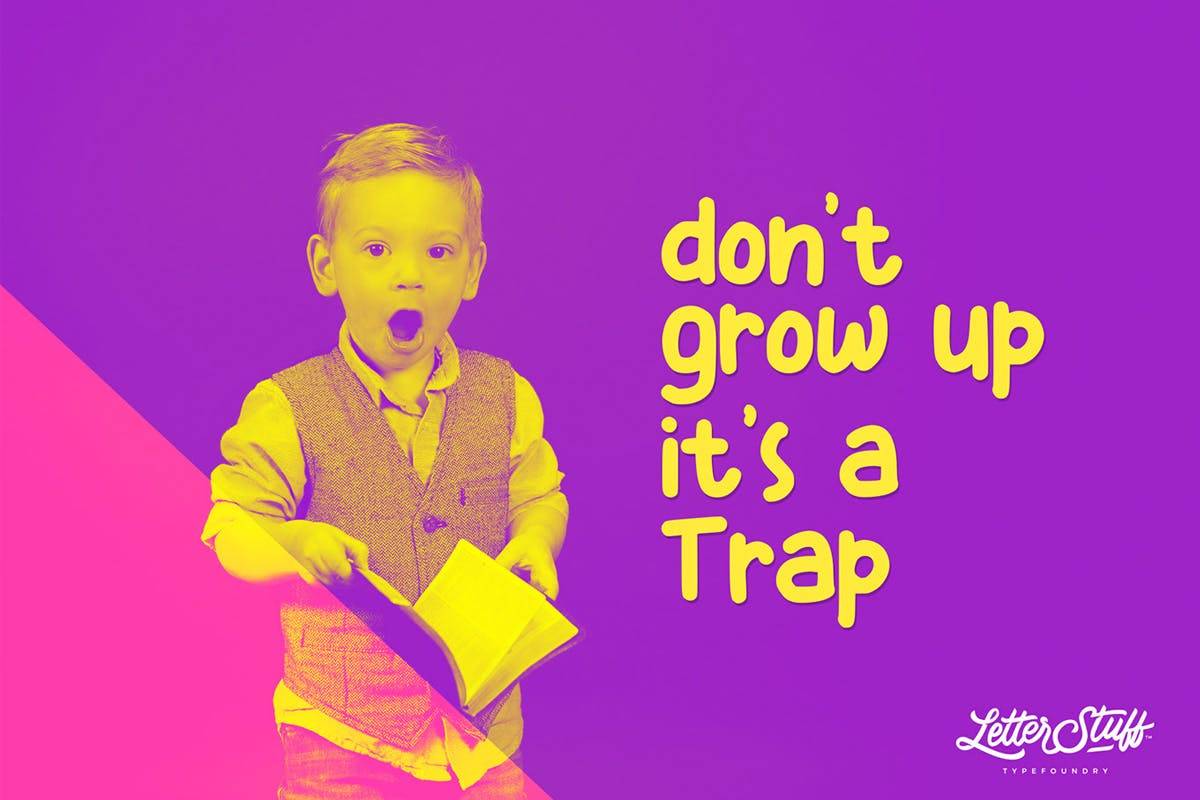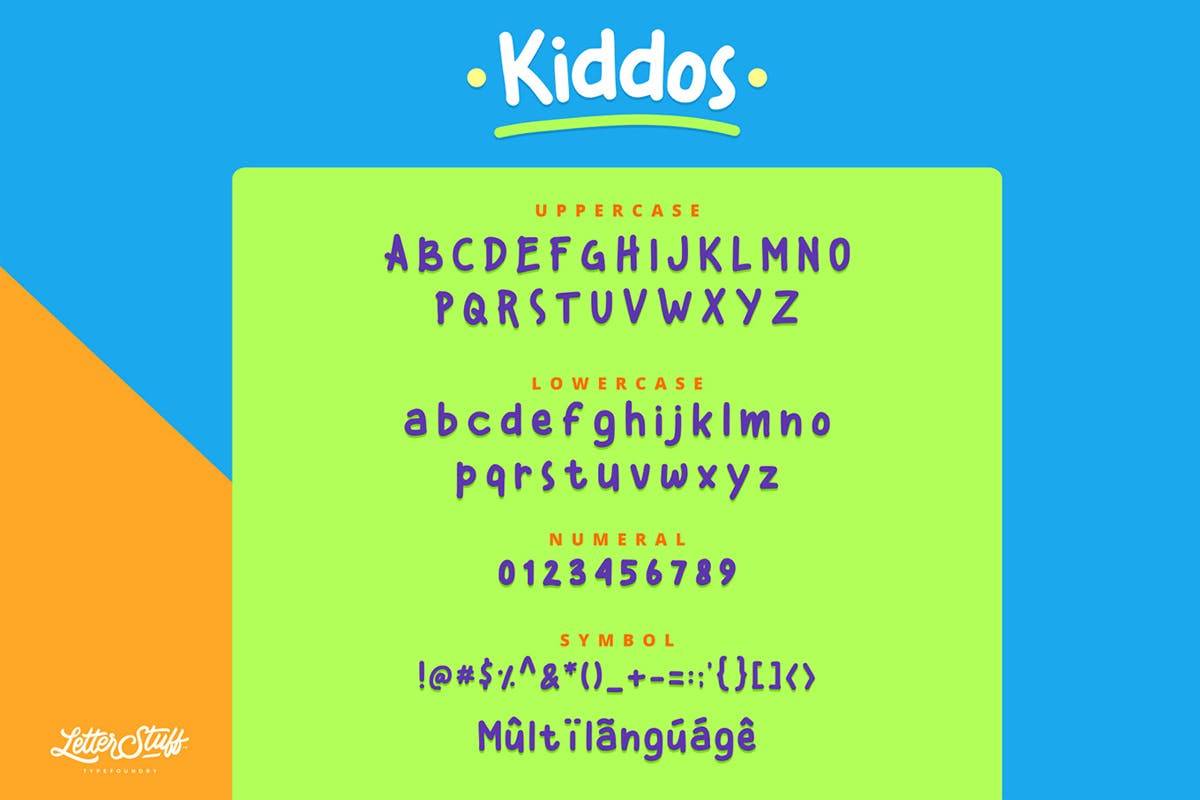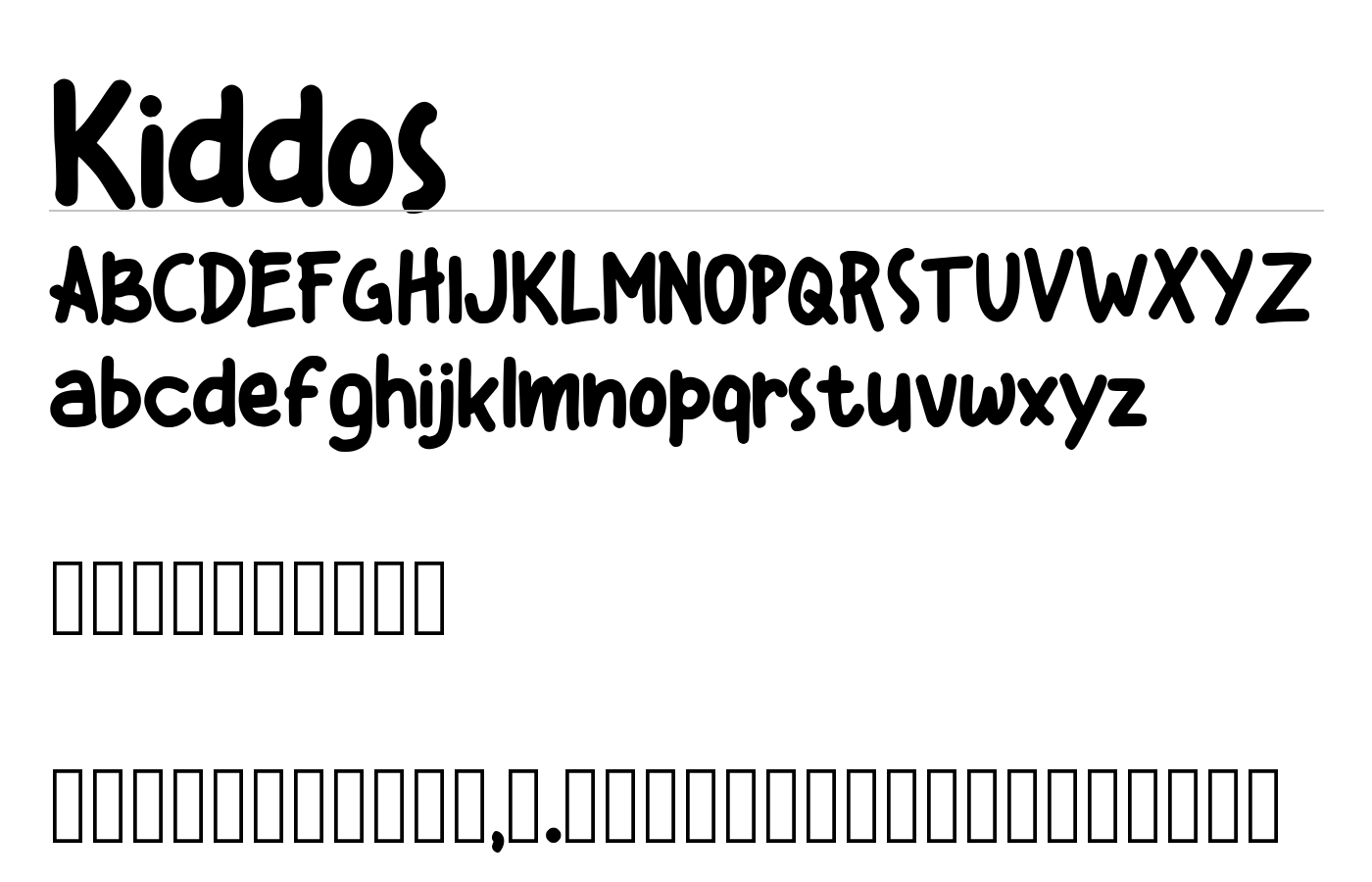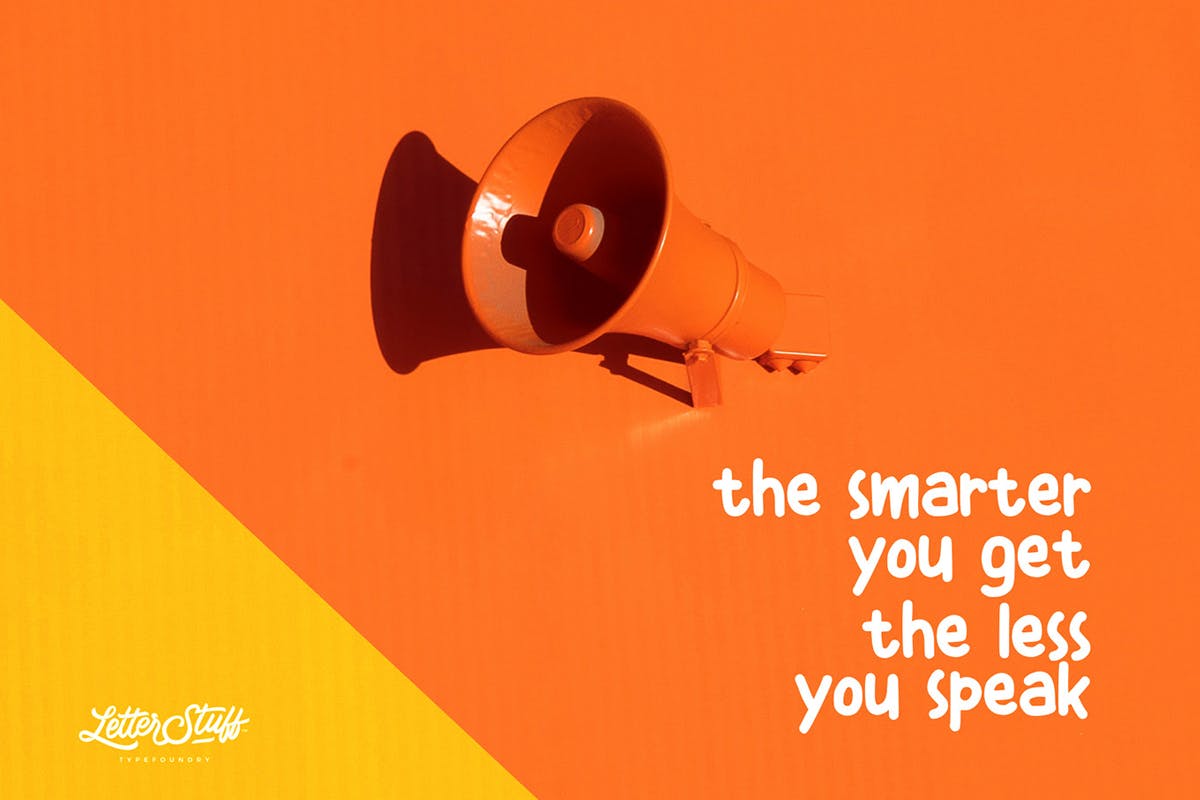
Kiddos Fun Handwriting Demo is a playful and friendly sans serif font with a casual, hand-drawn feel. Its bold, rounded letterforms and slightly irregular shapes make it perfect for children’s projects, informal designs, and any work seeking a warm, approachable vibe. This font shines in logos, posters, and packaging where a fun and lively personality is needed.
Kiddos Fun Handwriting Demo
About Kiddos Fun Handwriting Demo